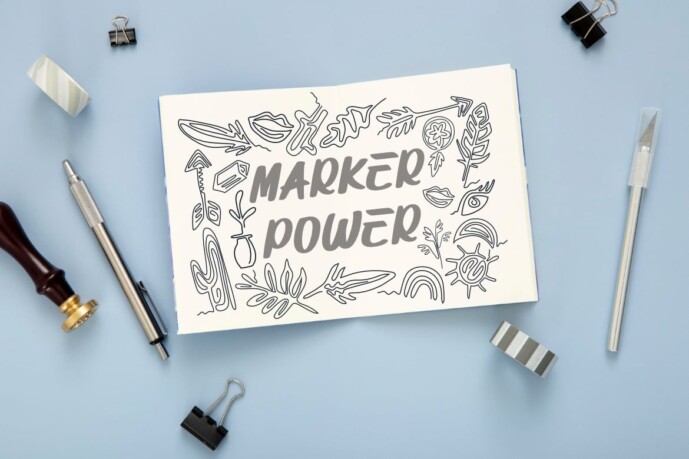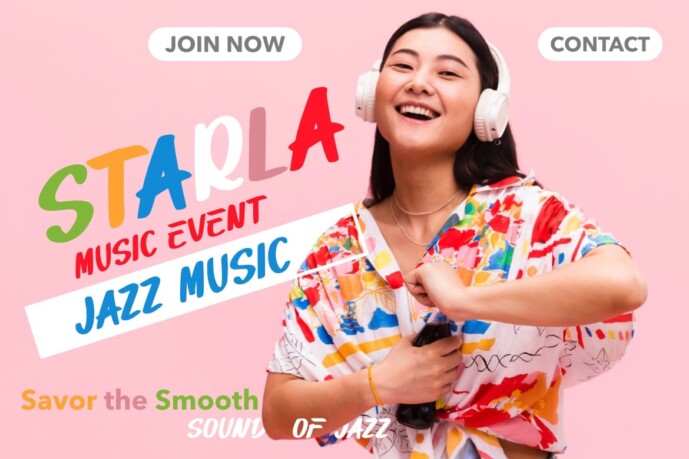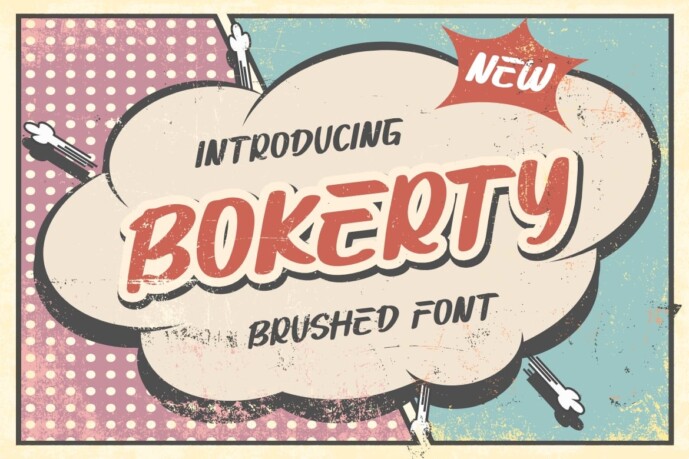
Bokerty Font
Designer: Bayuktx
Bokerty Font a New Brushed Font , this font is designed with premium quality level that you can use as flyers, quotes, posters, banners, packaging, merchandise, logotypes and much more.